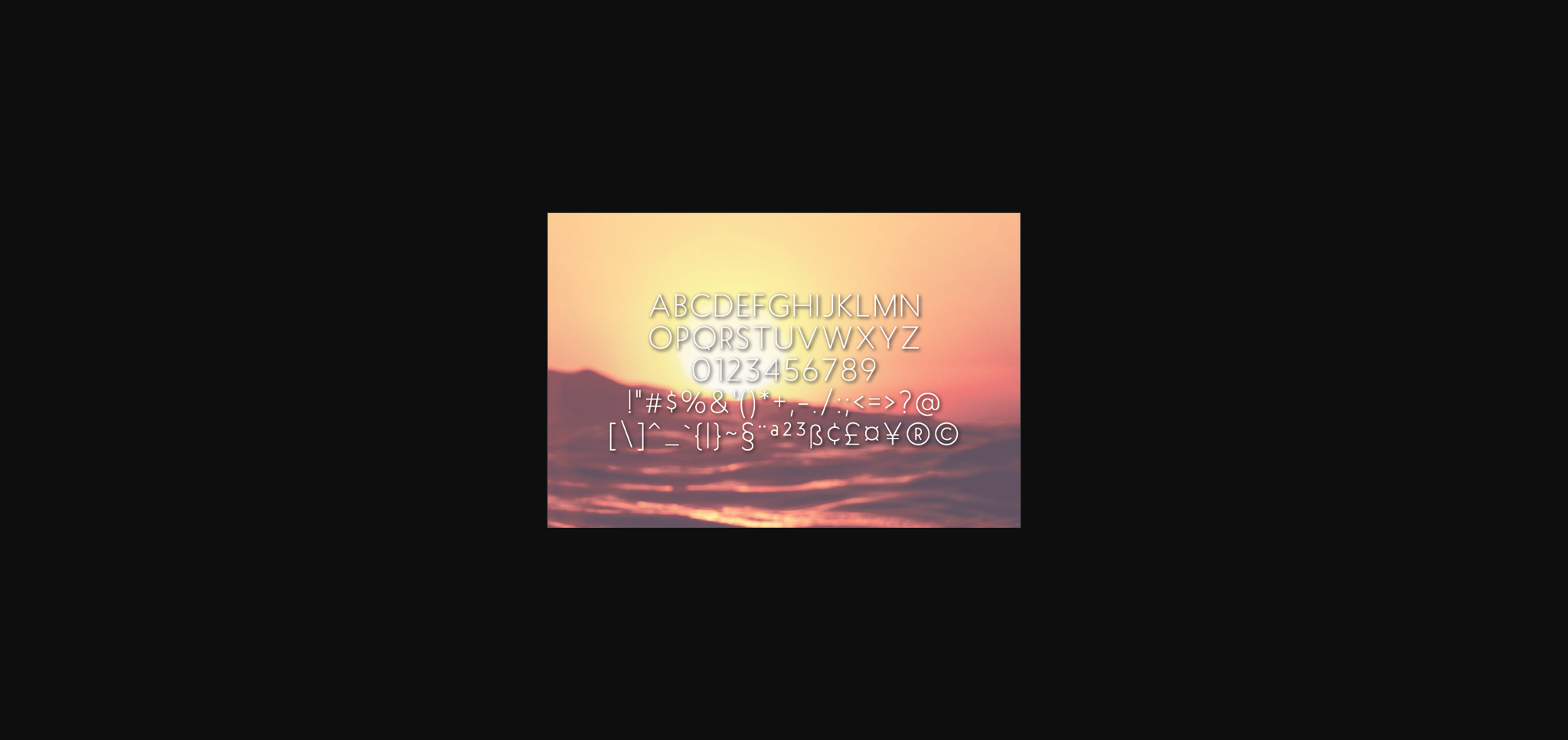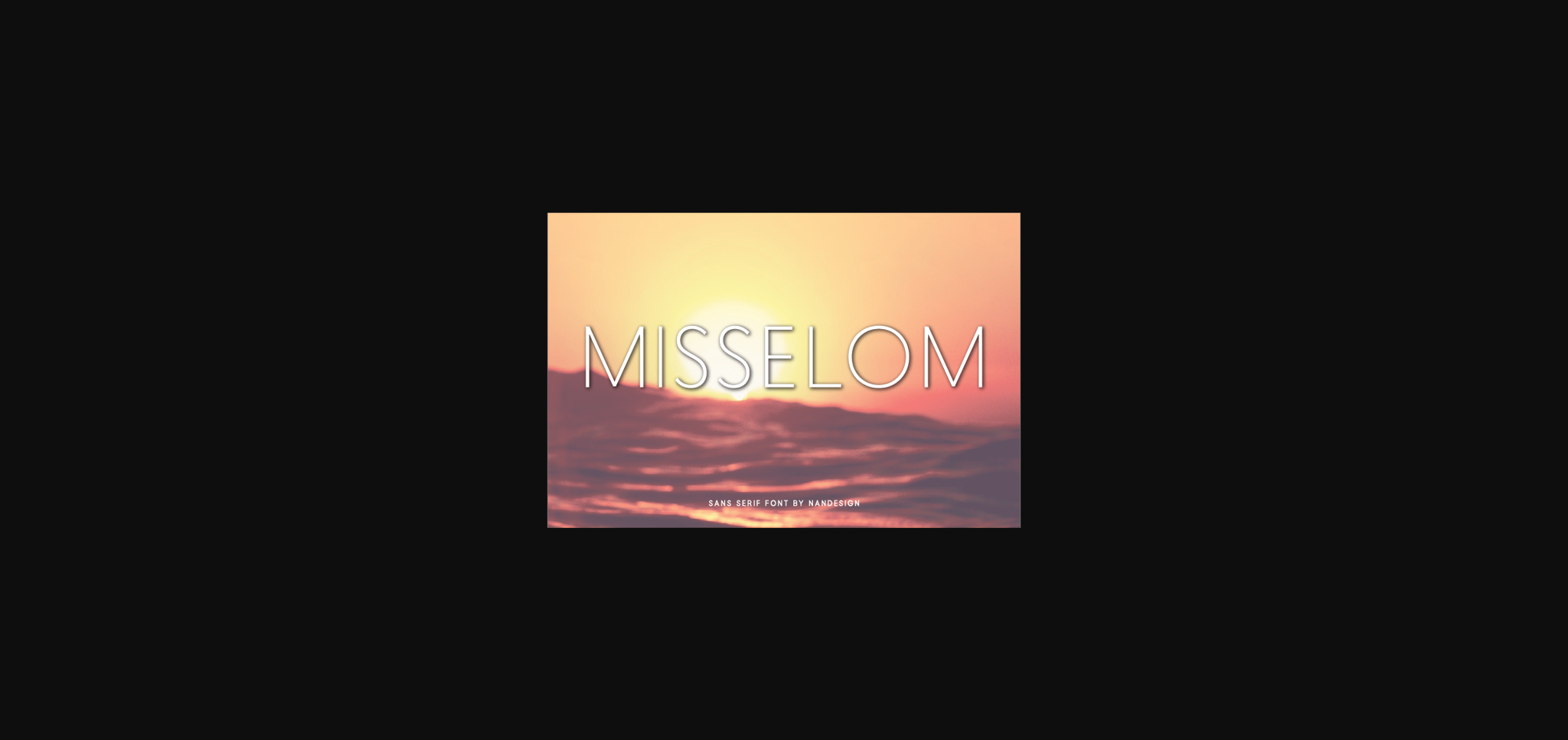
About Misselom Font
Misselom is a minimal and thin lettered sans serif font. It can be matched to an incredibly wide range of projects, such as displays, headers, invitations, save the dates, weddings, and so much more!